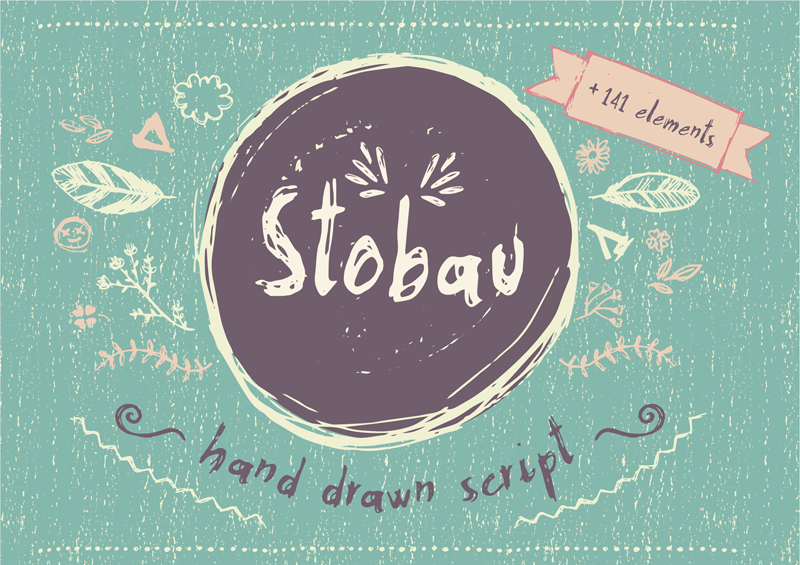
Stobau is a lovely Rustic Script ready to beautify your modern design project The irregular baseline and hand drawn quality to each character will give your work an authentic imperfect hand-lettered look! If you are going to use it commercially, buy the full version, which comes with kerning, embedding rights, all glyphs and extras from my shop: https://creativemarket.com/patchpo/907514-Scrabionau-Font The ornaments have a range of items to enhance your work, and even come with some versatile patterns and text dividers. All made to save time and make branding and designing super-easy! what's included in the full version: Stobau (OTF le) 11 x borders (vector and PNG format) 93 x clip arts (vector and PNG format) 19 x ornaments (vector and PNG format) 12 x patterns (vector and PNG format) 7 x wreaths |